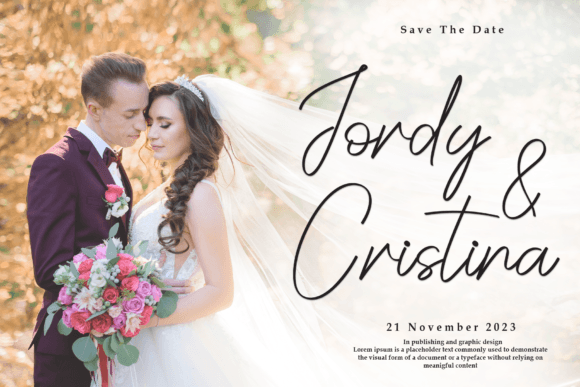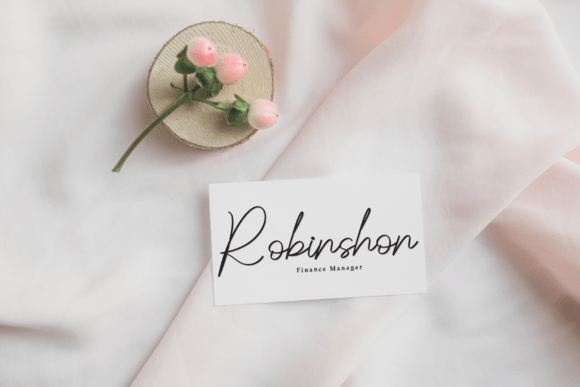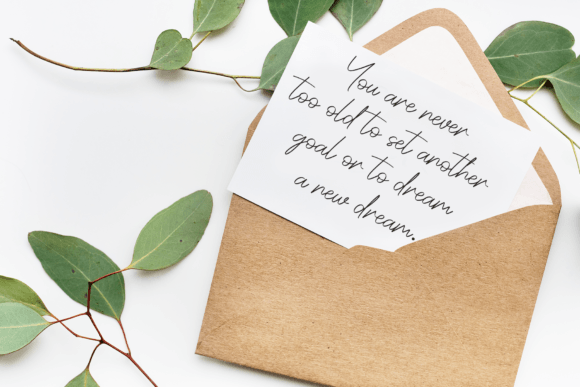
Introduction to Beautiful Rustic Font
Beautiful Rustic is a sweet and friendly handwritten font.
Why Choose Beautiful Rustic Font?
Beautiful Rustic Font offers exceptional quality and versatility, making it a valuable addition to your design toolkit. Whether you’re creating for personal projects or commercial use, Beautiful Rustic Font delivers professional results.